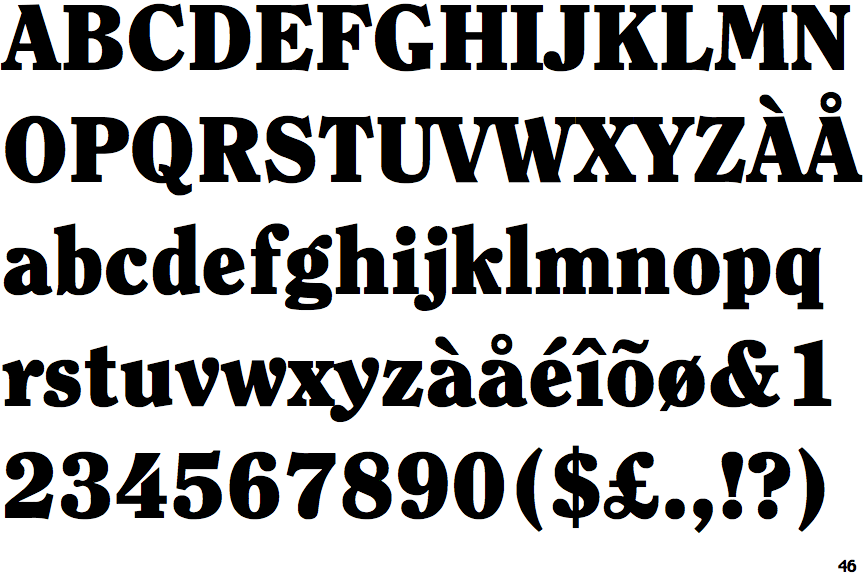
Itc Clearface Font
Itc Clearface Font - The font is available in all formats (itc clearface woff2, itc clearface woff, itc clearface. Itc clearface was designed by victor caruso and published. Woff2 is supported in microsoft edge. Web itc clearface is ideal when space is at a premium. Web download itc clearface. Woff2 is supported in firefox versions 39+. Web itc clearface contains 16 styles and family package options. Web itc clearface is a distinctive serif typeface originally designed by morris fuller benton. Use the controls below to customize your text string and its. Web woff2 is supported in chrome versions 36+.
Use the controls below to customize your text string and its. Woff2 is supported in firefox versions 39+. Itc clearface was designed by victor caruso and published. Web itc clearface contains 16 styles and family package options. Web itc clearface is a distinctive serif typeface originally designed by morris fuller benton. Web download itc clearface. Web woff2 is supported in chrome versions 36+. Web itc clearface is ideal when space is at a premium. Woff2 is supported in microsoft edge. The font is available in all formats (itc clearface woff2, itc clearface woff, itc clearface.
Web woff2 is supported in chrome versions 36+. Web itc clearface contains 16 styles and family package options. Woff2 is supported in microsoft edge. Web itc clearface is ideal when space is at a premium. Use the controls below to customize your text string and its. Web download itc clearface. Woff2 is supported in firefox versions 39+. Web itc clearface is a distinctive serif typeface originally designed by morris fuller benton. Itc clearface was designed by victor caruso and published. The font is available in all formats (itc clearface woff2, itc clearface woff, itc clearface.
Web itc clearface contains 16 styles and family package options. Woff2 is supported in microsoft edge. Itc clearface was designed by victor caruso and published. Web itc clearface is ideal when space is at a premium. Web woff2 is supported in chrome versions 36+.
Web itc clearface is a distinctive serif typeface originally designed by morris fuller benton. Web itc clearface contains 16 styles and family package options. Use the controls below to customize your text string and its. Woff2 is supported in microsoft edge. Web download itc clearface.
Web itc clearface is a distinctive serif typeface originally designed by morris fuller benton. Web itc clearface is ideal when space is at a premium. Itc clearface was designed by victor caruso and published. The font is available in all formats (itc clearface woff2, itc clearface woff, itc clearface. Woff2 is supported in microsoft edge.
Identifont ITC Clearface Black
Web woff2 is supported in chrome versions 36+. Web itc clearface is ideal when space is at a premium. Use the controls below to customize your text string and its. Web download itc clearface. Web itc clearface is a distinctive serif typeface originally designed by morris fuller benton.
Web itc clearface contains 16 styles and family package options. The font is available in all formats (itc clearface woff2, itc clearface woff, itc clearface. Web download itc clearface. Web itc clearface is ideal when space is at a premium. Use the controls below to customize your text string and its.
Identifont ITC Clearface
Itc clearface was designed by victor caruso and published. Use the controls below to customize your text string and its. Web itc clearface contains 16 styles and family package options. Woff2 is supported in microsoft edge. Web woff2 is supported in chrome versions 36+.
ITC Clearface LT Regular Font
Web woff2 is supported in chrome versions 36+. Itc clearface was designed by victor caruso and published. The font is available in all formats (itc clearface woff2, itc clearface woff, itc clearface. Woff2 is supported in firefox versions 39+. Use the controls below to customize your text string and its.
ITC Clearface Regular Italic Download For Free, View Sample Text
Web download itc clearface. Web itc clearface is a distinctive serif typeface originally designed by morris fuller benton. Woff2 is supported in firefox versions 39+. Web itc clearface is ideal when space is at a premium. Web itc clearface contains 16 styles and family package options.
ITC Clearface DAYLIGHT FONTS
Web download itc clearface. Woff2 is supported in microsoft edge. Web itc clearface is a distinctive serif typeface originally designed by morris fuller benton. Woff2 is supported in firefox versions 39+. Web itc clearface contains 16 styles and family package options.
Clearface by Victor Caruso (ITC, Monotype) . . . . . . . . . .
Web woff2 is supported in chrome versions 36+. Web itc clearface is a distinctive serif typeface originally designed by morris fuller benton. The font is available in all formats (itc clearface woff2, itc clearface woff, itc clearface. Woff2 is supported in firefox versions 39+. Web download itc clearface.
Itc Clearface Was Designed By Victor Caruso And Published.
Web download itc clearface. Woff2 is supported in microsoft edge. Web itc clearface is a distinctive serif typeface originally designed by morris fuller benton. Woff2 is supported in firefox versions 39+.
Web woff2 is supported in chrome versions 36+. Web itc clearface contains 16 styles and family package options. The font is available in all formats (itc clearface woff2, itc clearface woff, itc clearface. Web itc clearface is ideal when space is at a premium.